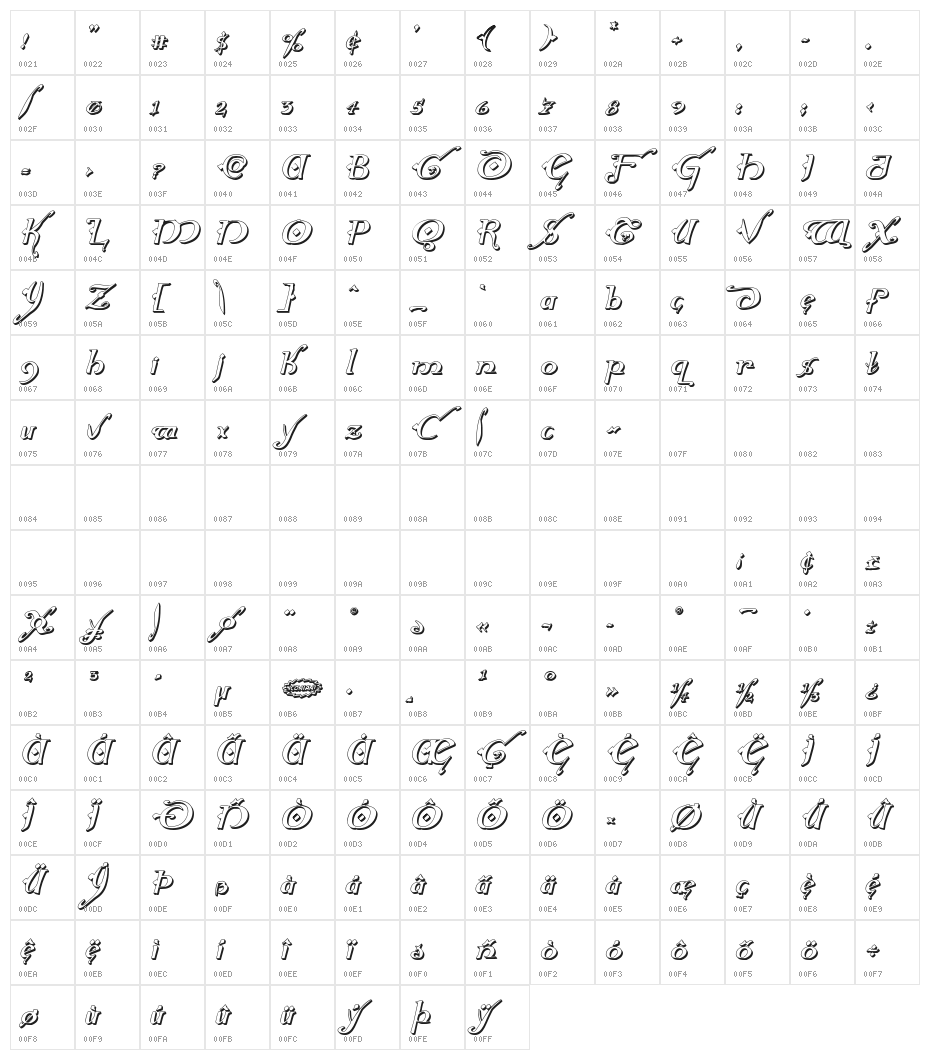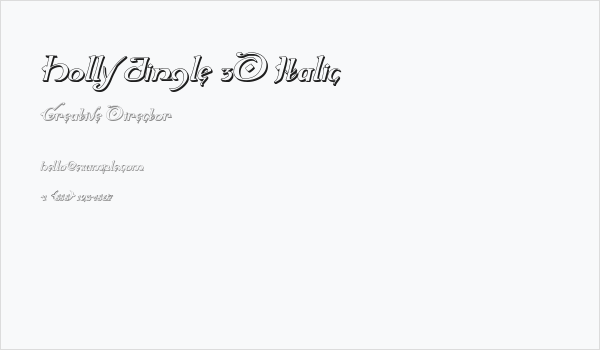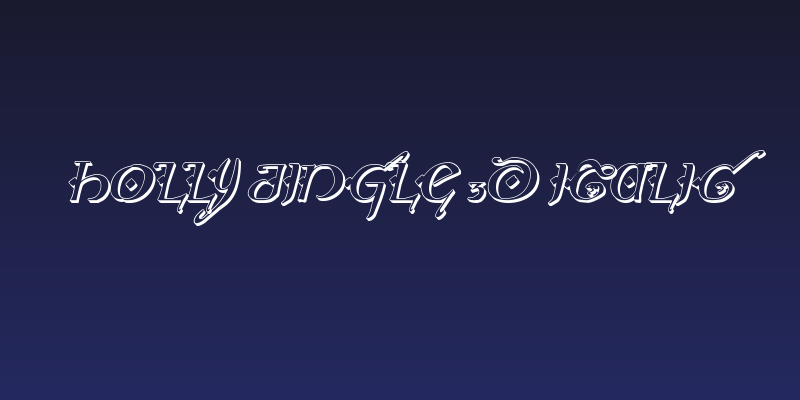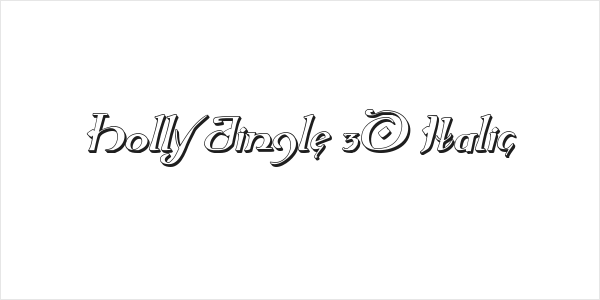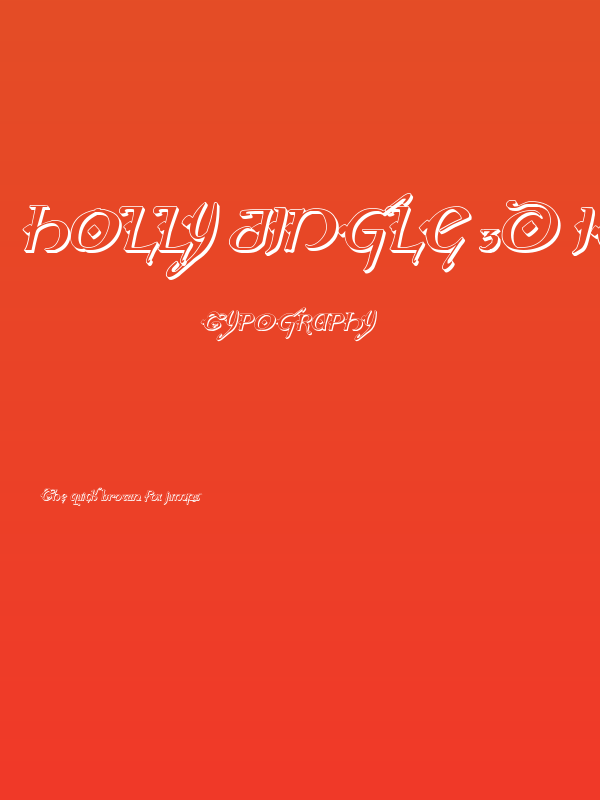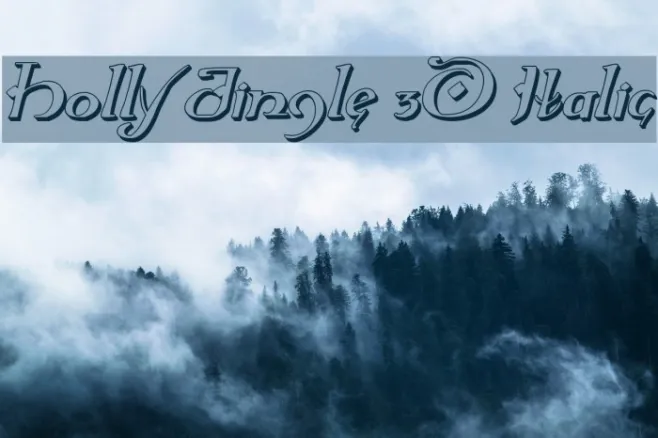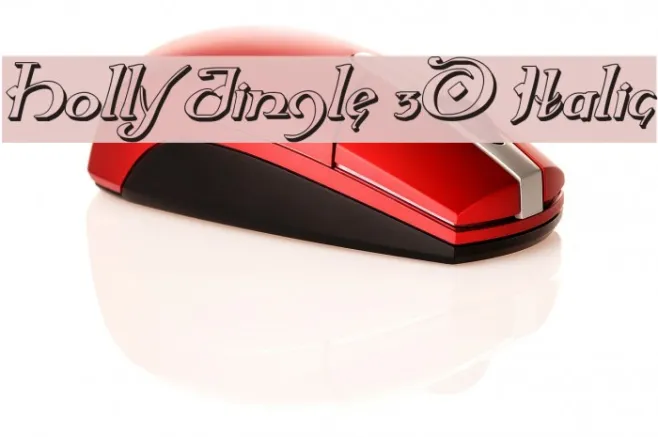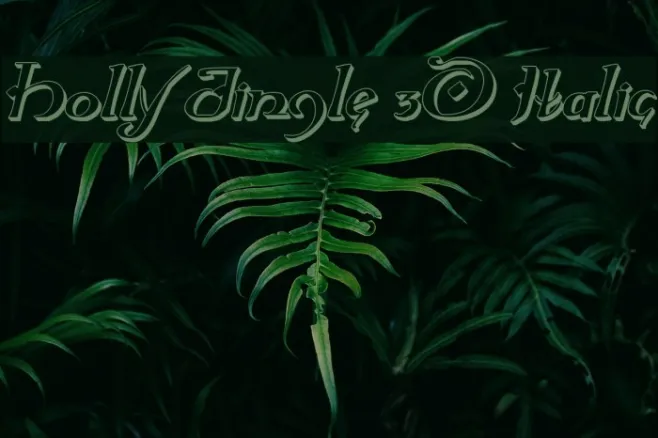
Holly Jingle 3D Italic Font
Holly Jingle 3D Italic Description
This font features a playful and festive design with a 3D effect that gives it a unique and eye-catching appearance. The characters are italicized, adding a sense of movement and dynamism. The strokes are bold and have a medium contrast, with some characters featuring decorative swirls and embellishments. The overall style is decorative and whimsical, making it suitable for holiday-themed projects or any design that requires a touch of fun and flair. The character spacing is normal, ensuring readability while maintaining its decorative appeal.